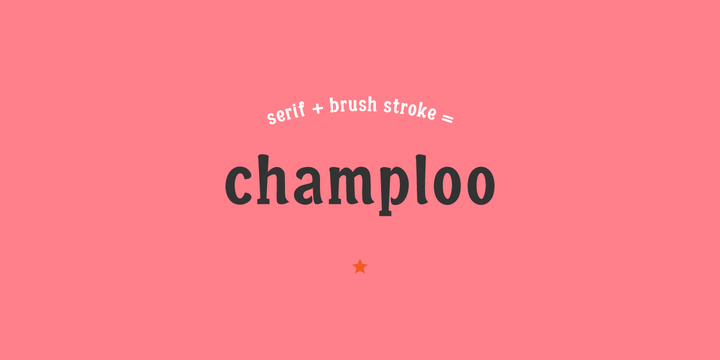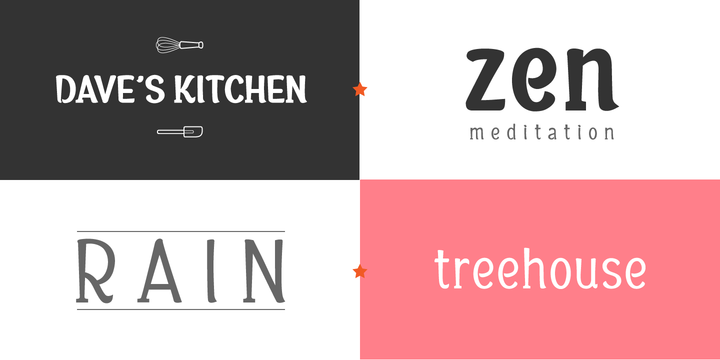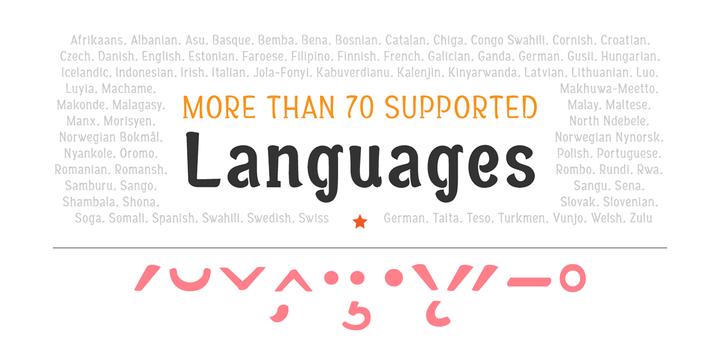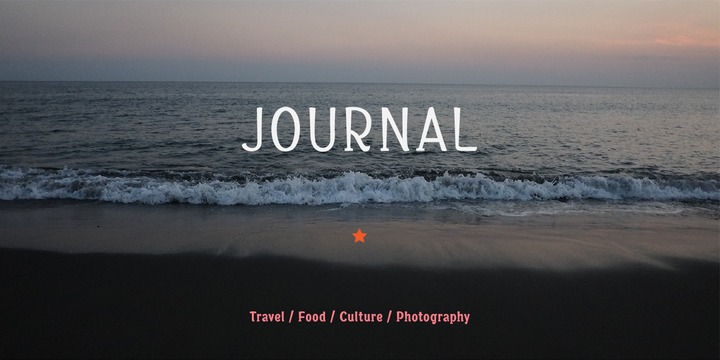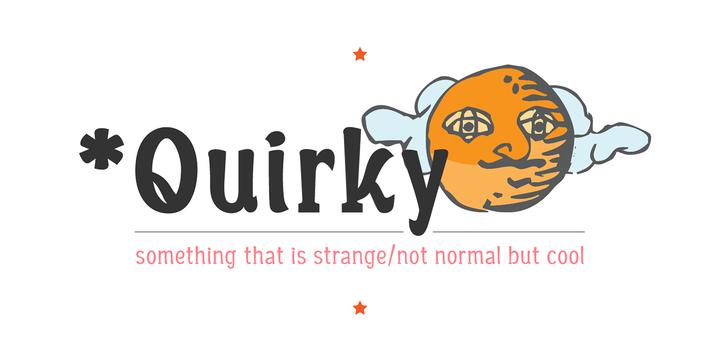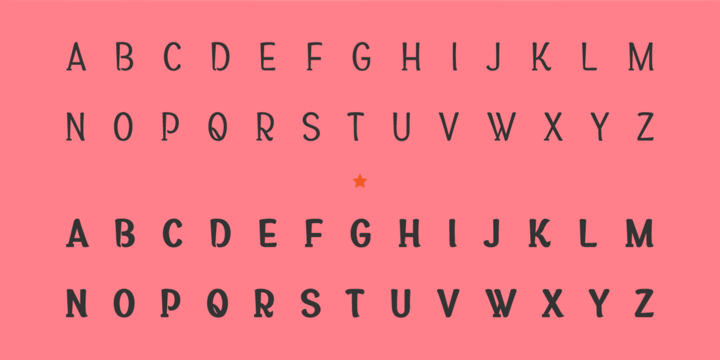
Champloo Font Family
Champloo is very unique typeface which combines serif features and brush stroke. Some letters have serif, but some don’t. Serif to be found on left side of stem only. It gives a quirky impression on short text.
However the larger the text become, the more consistent look it gets as a whole. These two versatile weights let you play with the typeface freely and beautifully.
Champloo Regular
Champloo Bold